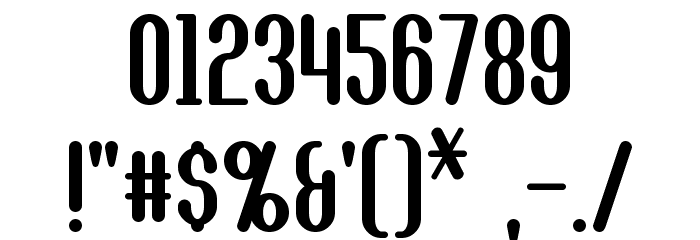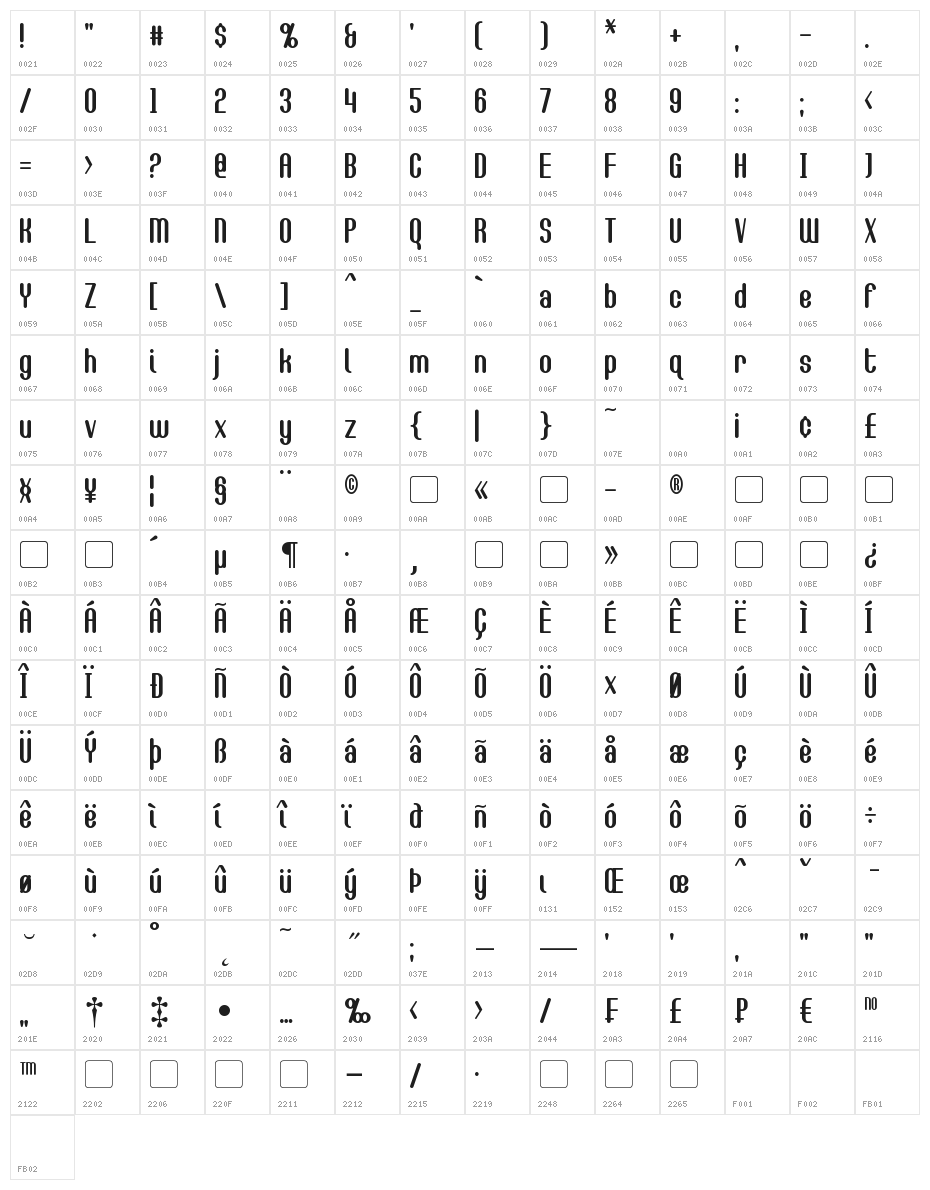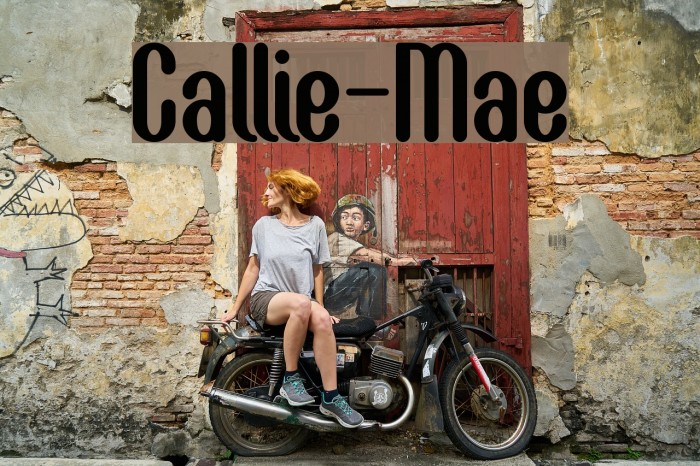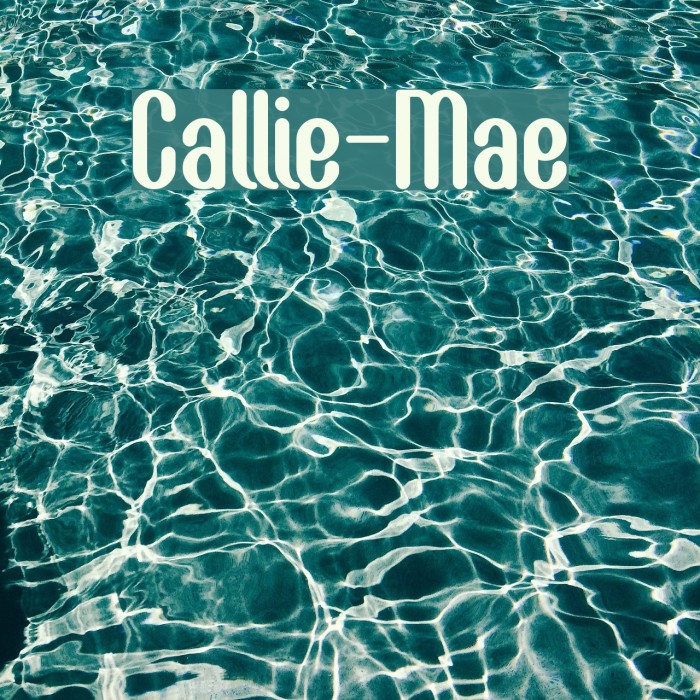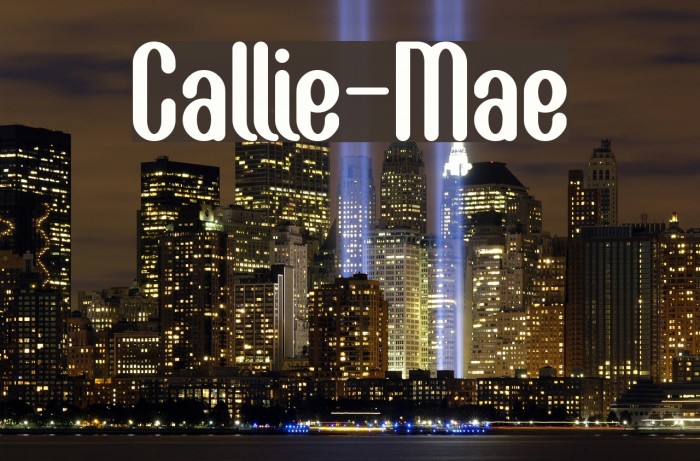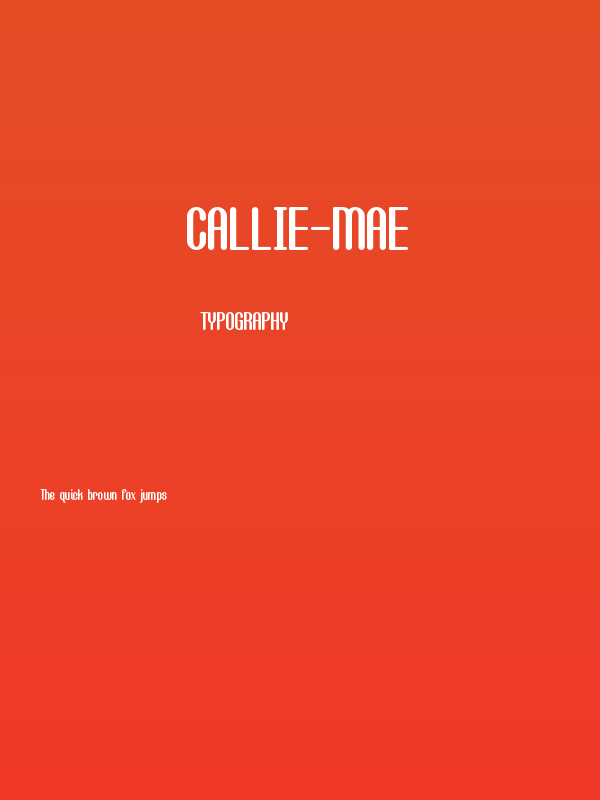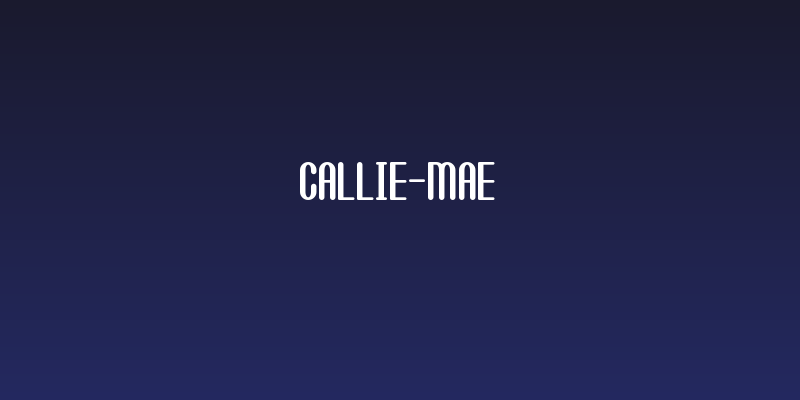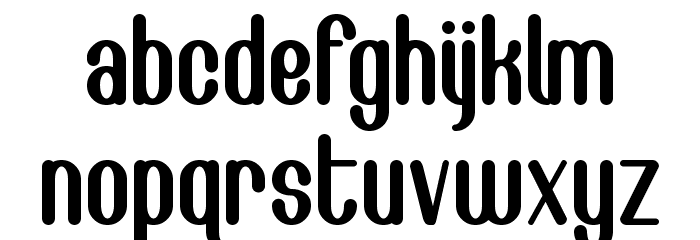
Callie-Mae Font
Callie-Mae Description
This font features a playful and rounded design with a modern twist. The characters are bold and have a consistent stroke width, giving them a uniform appearance. The rounded edges and smooth curves add a friendly and approachable feel, making it suitable for a variety of creative projects. The uppercase and lowercase letters maintain a consistent style, and the numerals are clear and easy to read. Special characters are included, enhancing the font's versatility.